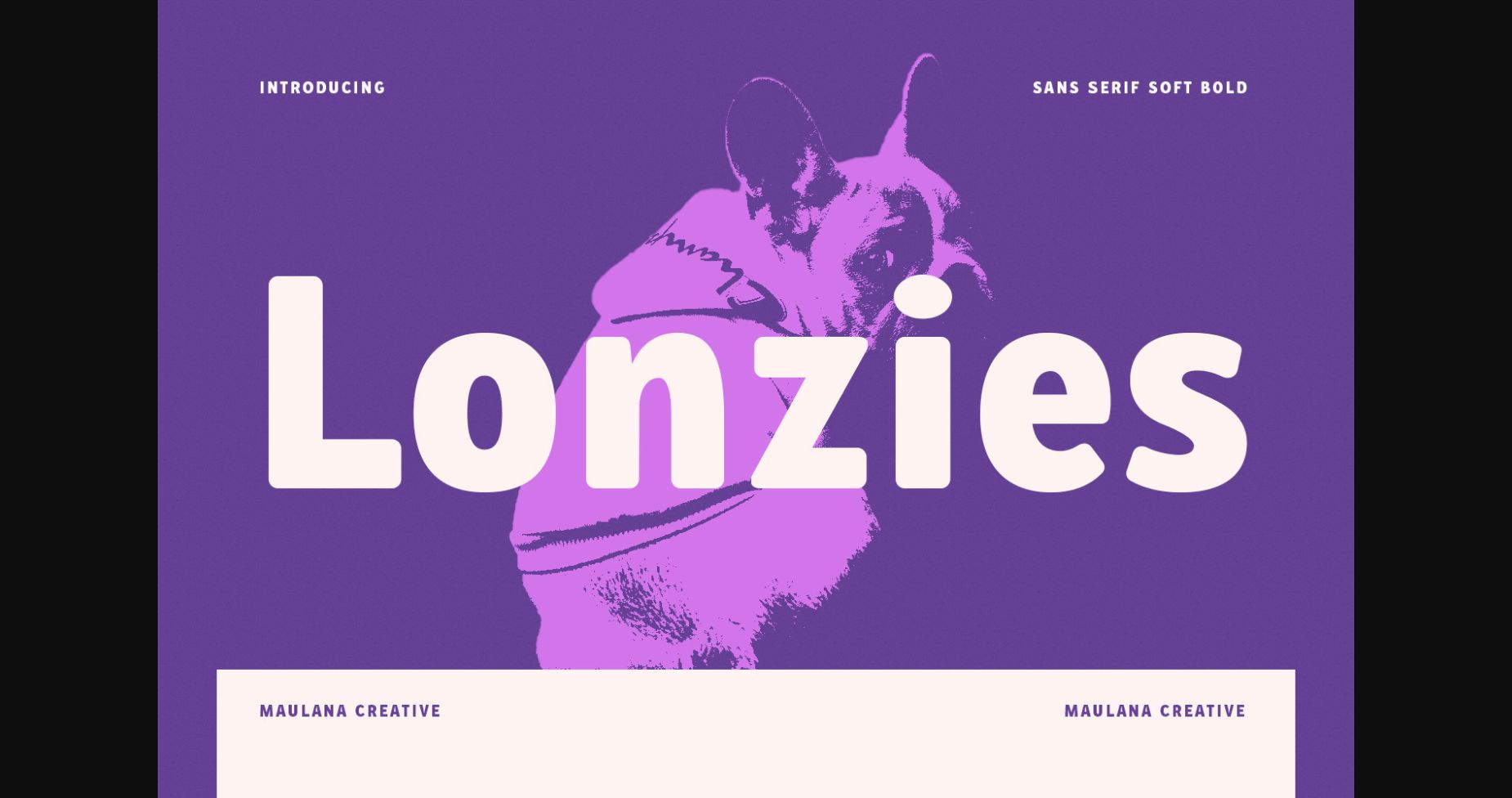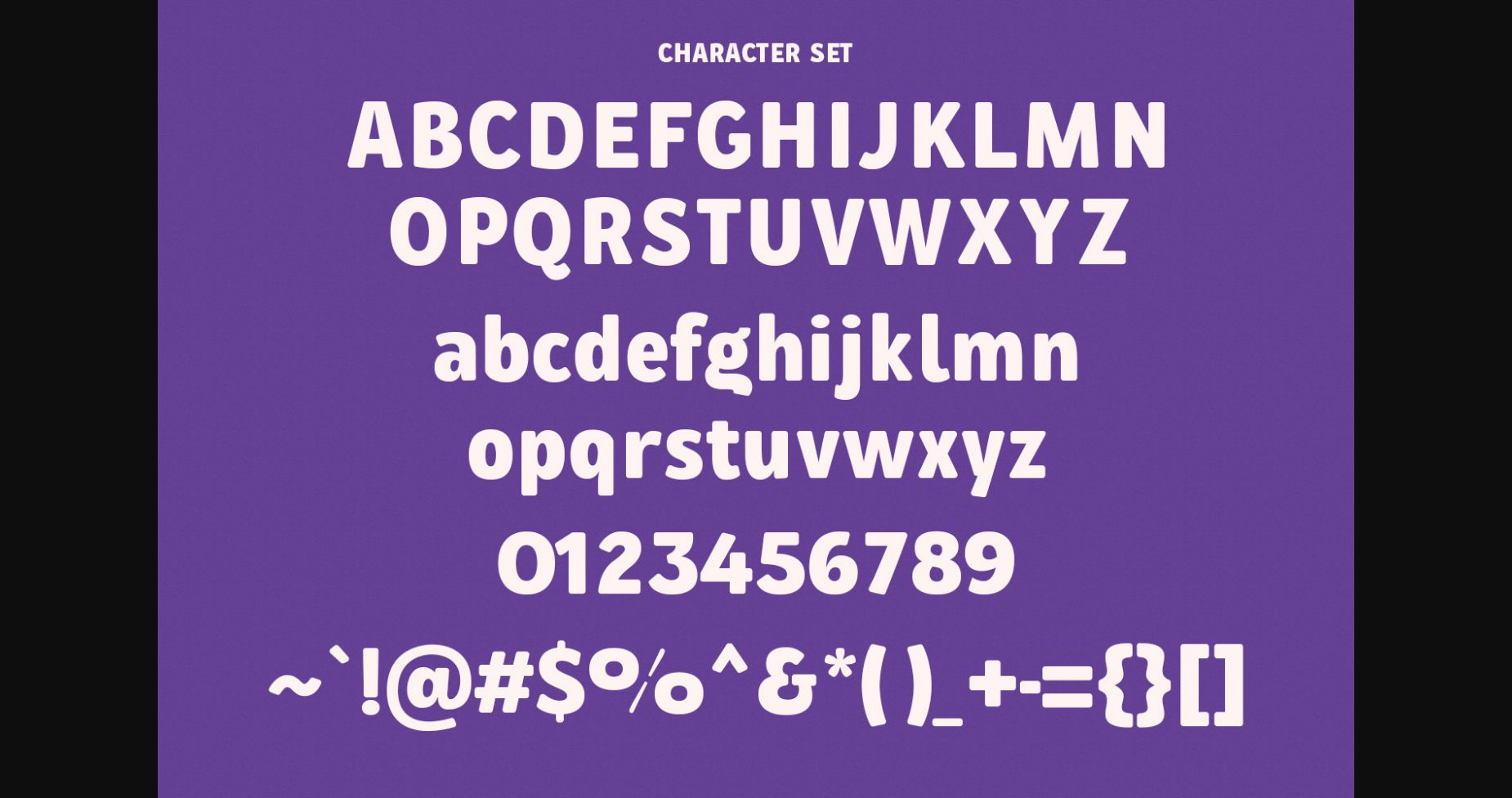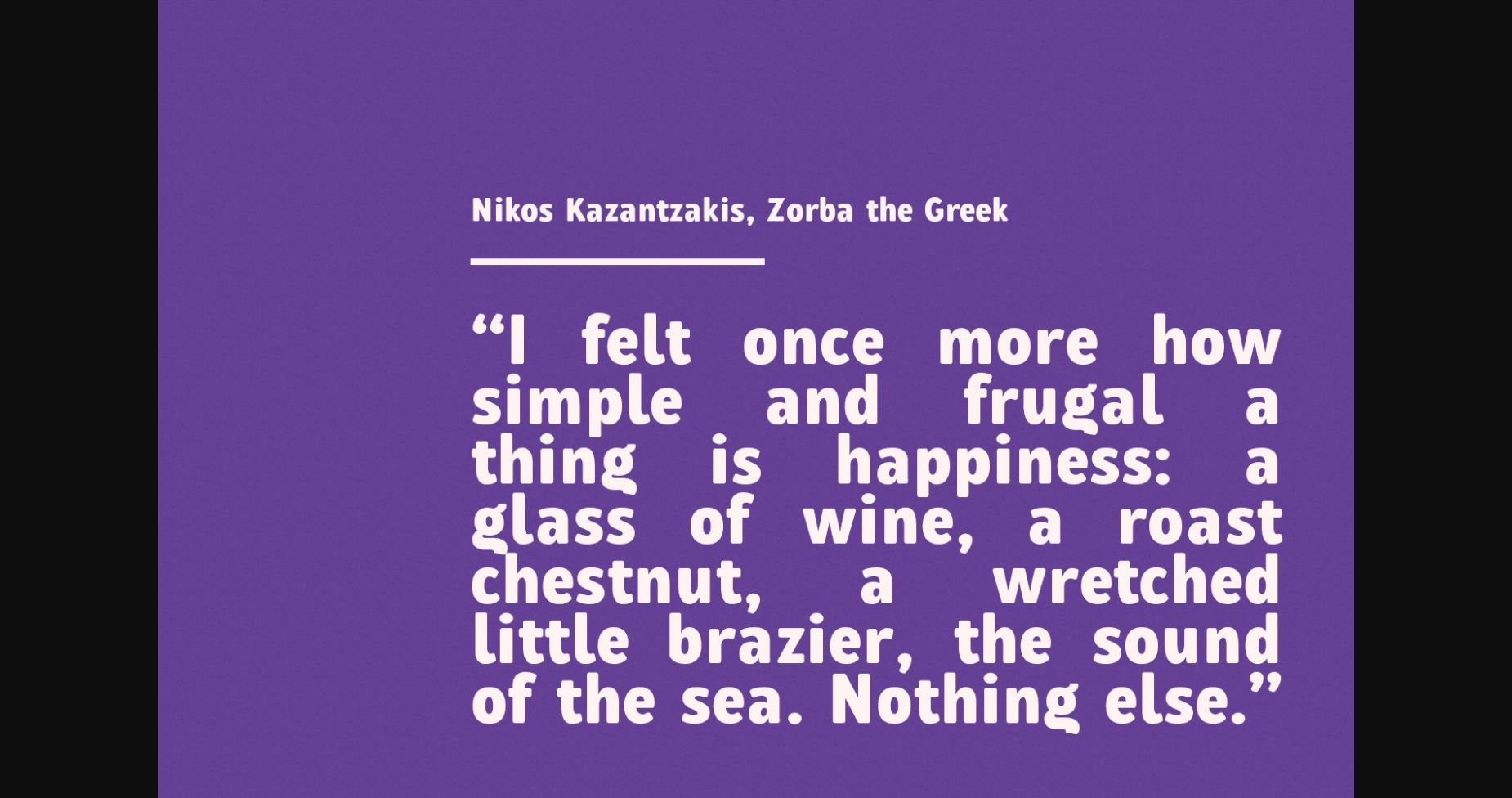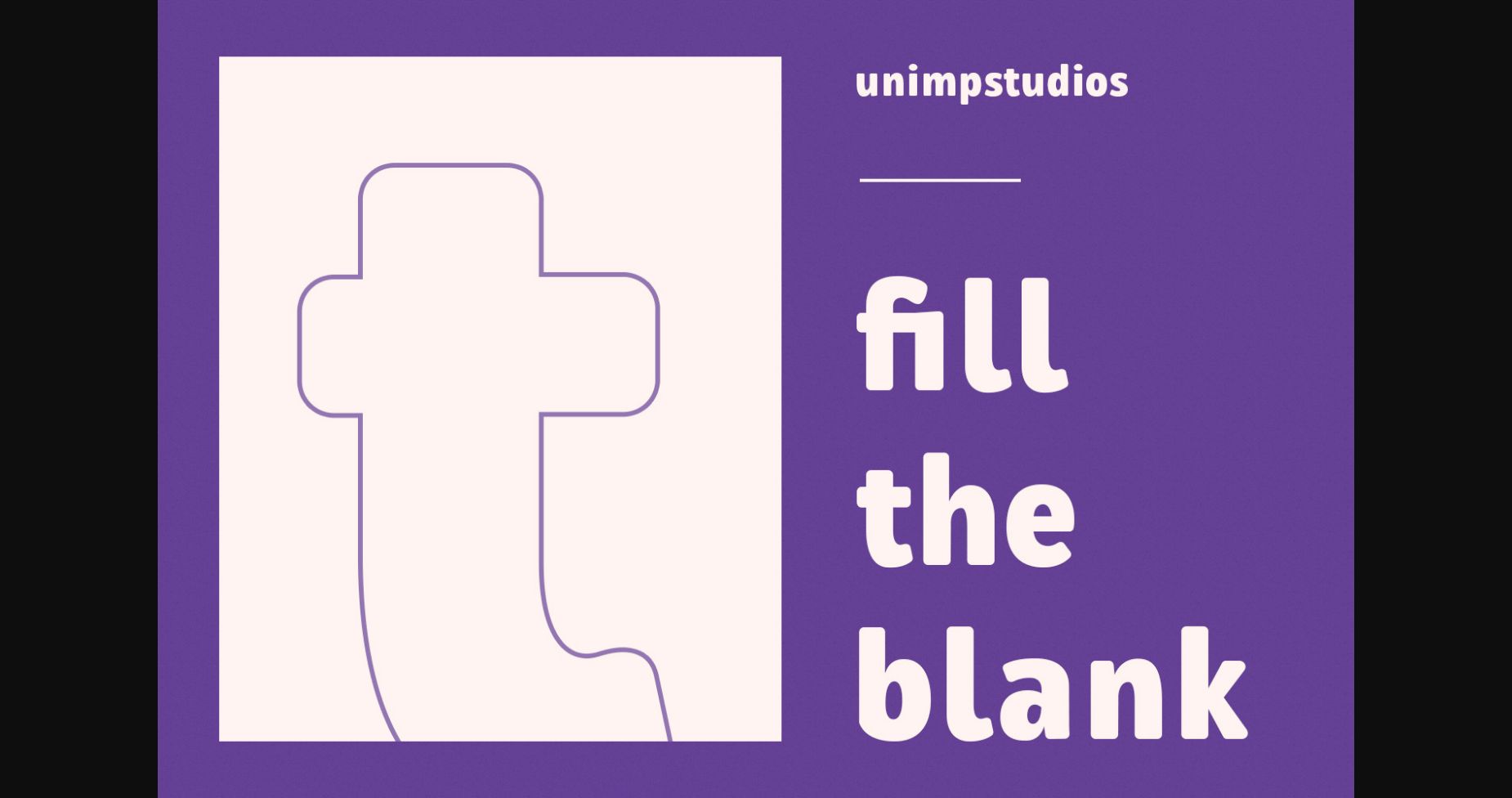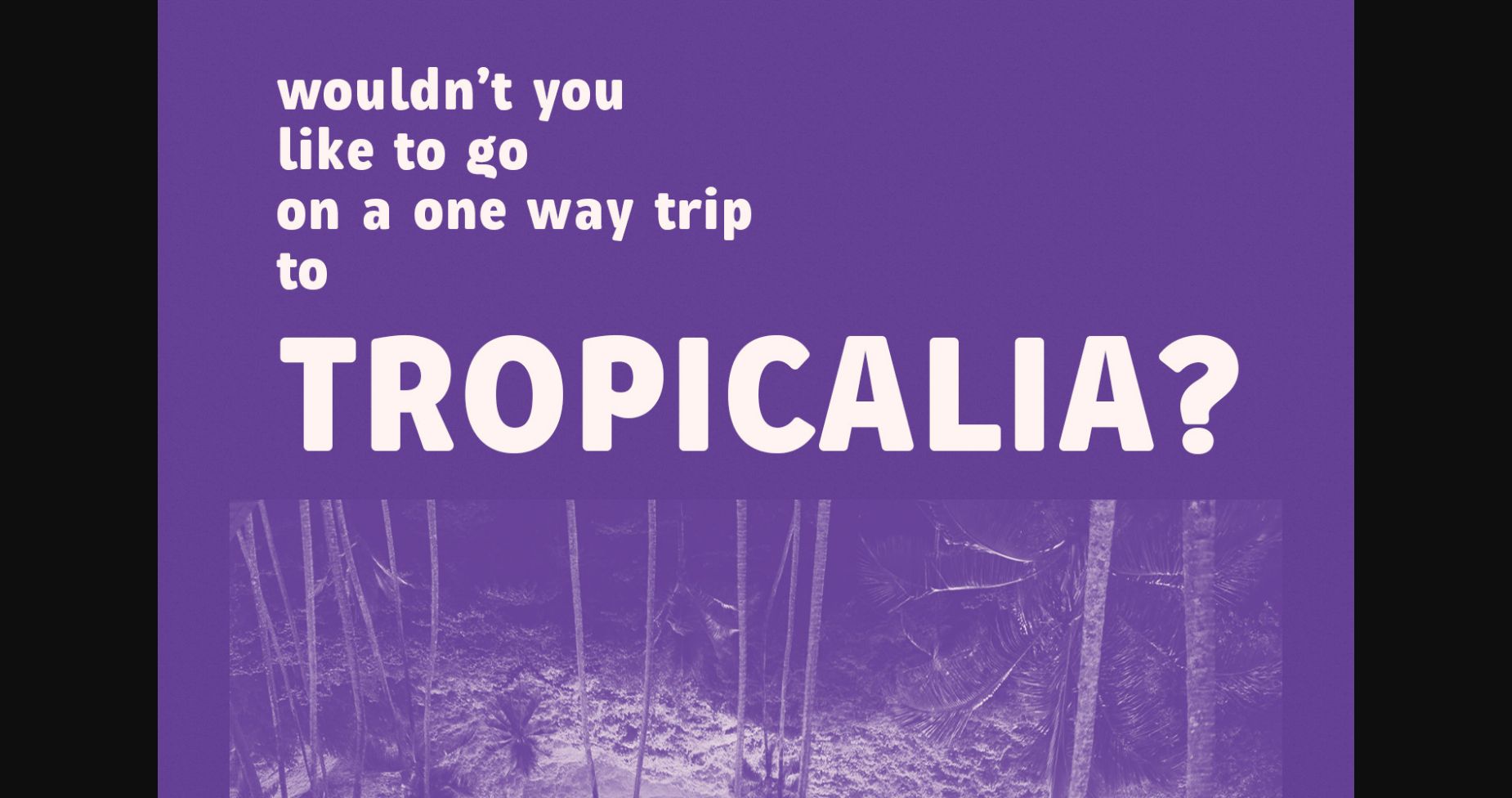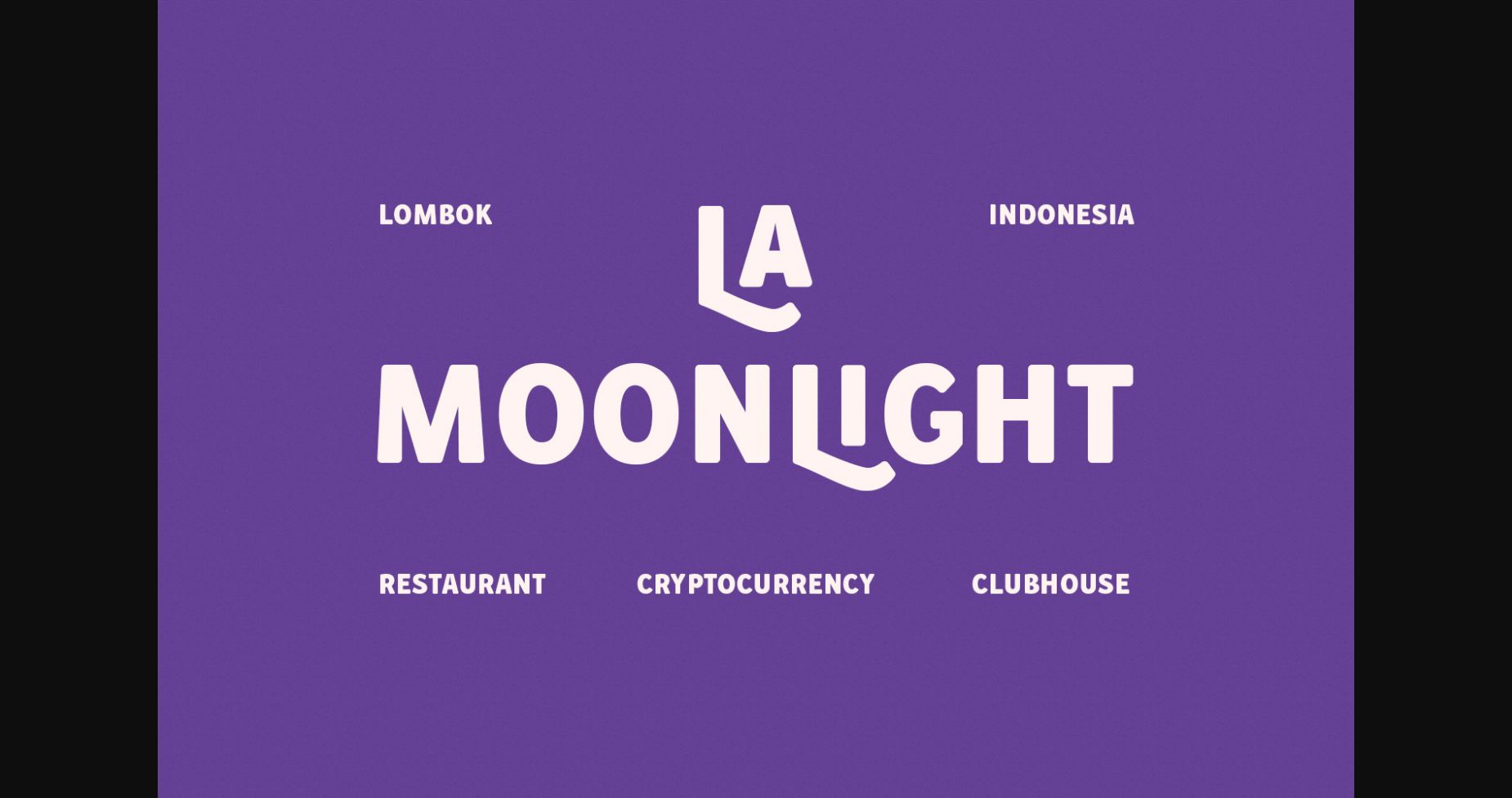
Lonzies Font
About Lonzies Font
Lonzies is a simply semi-geometric sans serif font. Trendy and stylish, this font will elevate each of your creations!